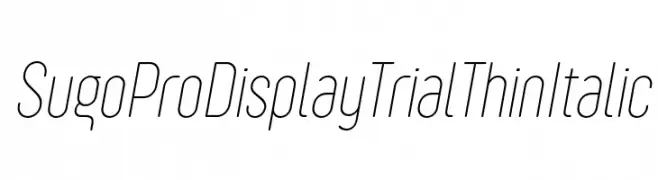
A sleek, modern font with elongated, thin strokes and a minimalist aesthetic.
A sleek, thin, and italicized font with a modern and elegant style.
A bold, elegant script font with smooth curves and dramatic swashes.
A bold, handwritten font with smooth, rounded edges and a playful style.
A bold, geometric font with a 3D effect and textured interior.
A bold, distressed font with a textured, grunge appearance.
A bold, modern font with thick strokes and a strong visual impact.
A bold, geometric font with a modern and futuristic design.
A bold, geometric font with a hollow interior and modern design.
A bold, jagged font with sharp, irregular edges for dramatic impact.